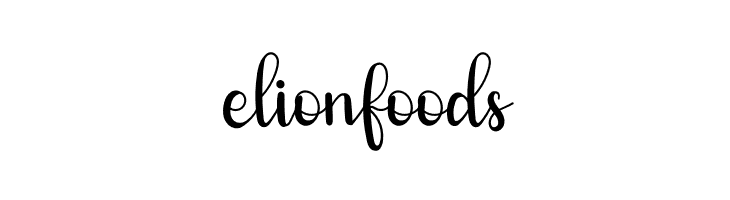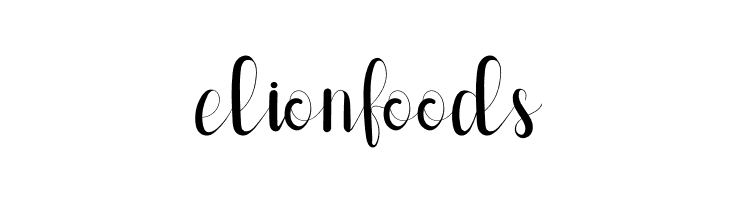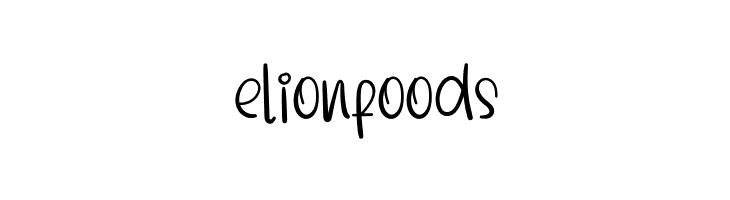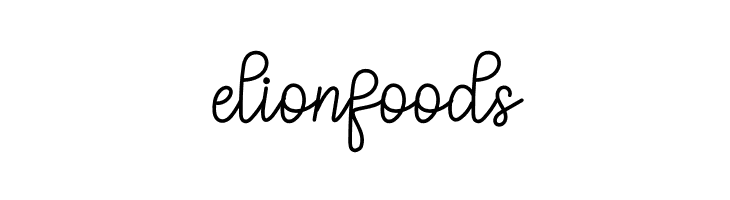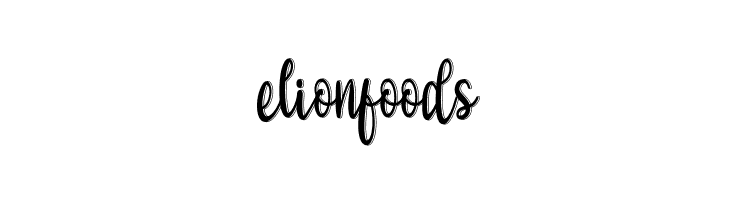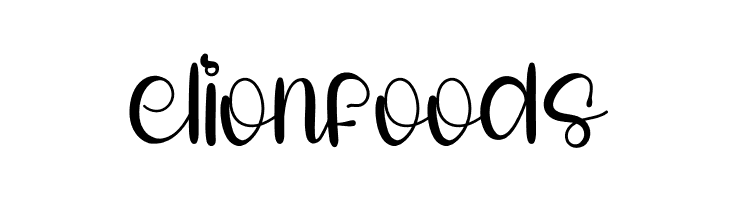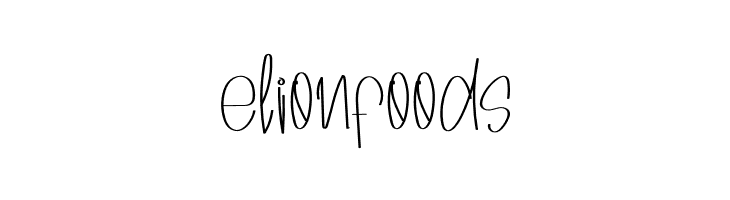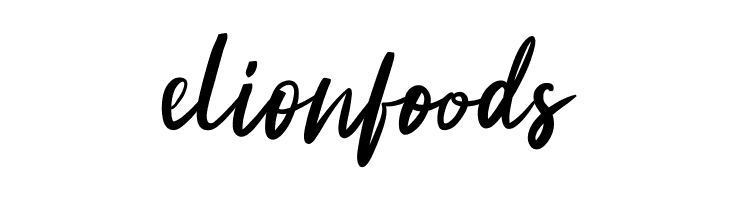
A flowing, cursive script font with elegant curves and loops.
A decorative script font with elegant loops and swirls, perfect for artistic designs.
A playful, handwritten font with smooth, flowing lines and a casual aesthetic.
A sophisticated and elegant handwritten font with fluid, interconnected strokes.
A modern, elegant handwritten font with flowing, connected letterforms.
A playful and elegant script font with flowing, cursive letterforms and moderate contrast.
A playful, handwritten font with tall, narrow letters and a whimsical style.
A modern, handwritten font with elegant, flowing characters.
A fluid, cursive script font with an elegant, handwritten style.
A dynamic and expressive script font with fluid, cursive strokes.